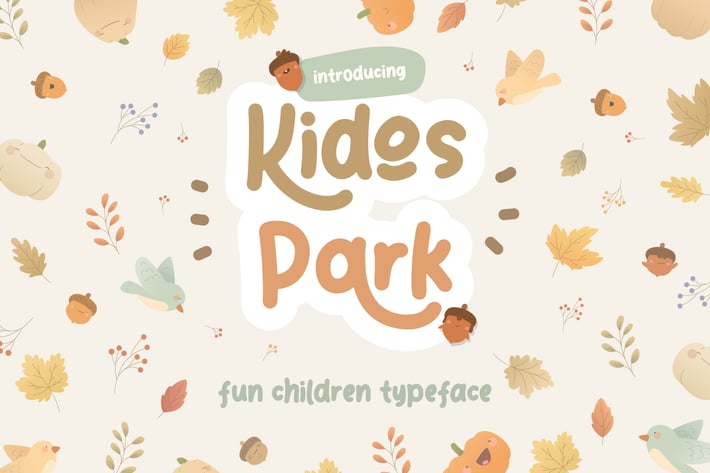
Kidos Park Fun Children Typeface
Kidos Park is hand-drawn typeface, giving off a playful and adorable impression, made with fun, joyful and perfect for kindergarten, children's books and occasion.
Kidos Park is perfect for branding projects, logo, wedding designs, social media posts, advertisements, product packaging, product designs, label, photography, watermark, invitation, stationery and any projects that need handwriting taste.
Ton of glyphs
Ligature & Alternate